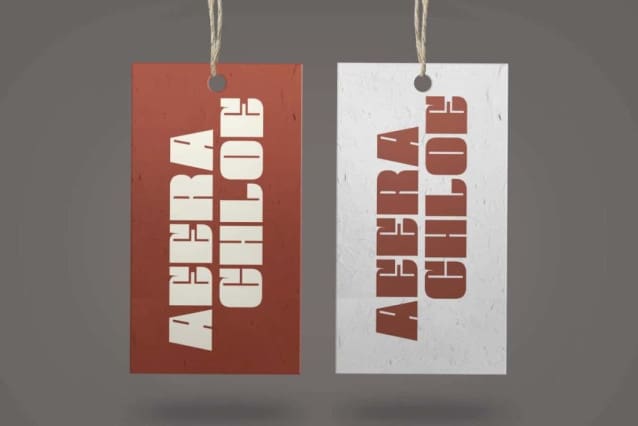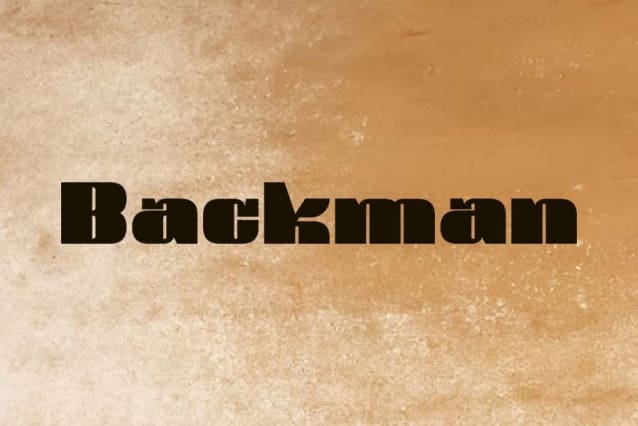
Backman Font
Backman Font is a fat modern sans serif display font with a cool and simple recent invasion. Its bold and stylish appearance makes it an excellent choice for anyone looking to break out of the usual font constraints. It will be interesting and be able to make your business feel good, such as apps, blogs, brochure, business card, headers, headline, labels, logos, menu, posters, printing, quotes, template design, titles, websites, etc.
Backman Font includes full set of Uppercase and Lowercase Basic Characters, Numbers, Punctuation, and Symbols. It looks formal with an impactful weight that will be perfect for an unusual letter aesthetic. It is the first step to an identity that stands out from the rest. Making it an ideal choice for ads, apparel, corporate, fashion, graphic design, home furniture, hotel, music and entertainment, photography, real estate, restaurant, travel agent, and many more.